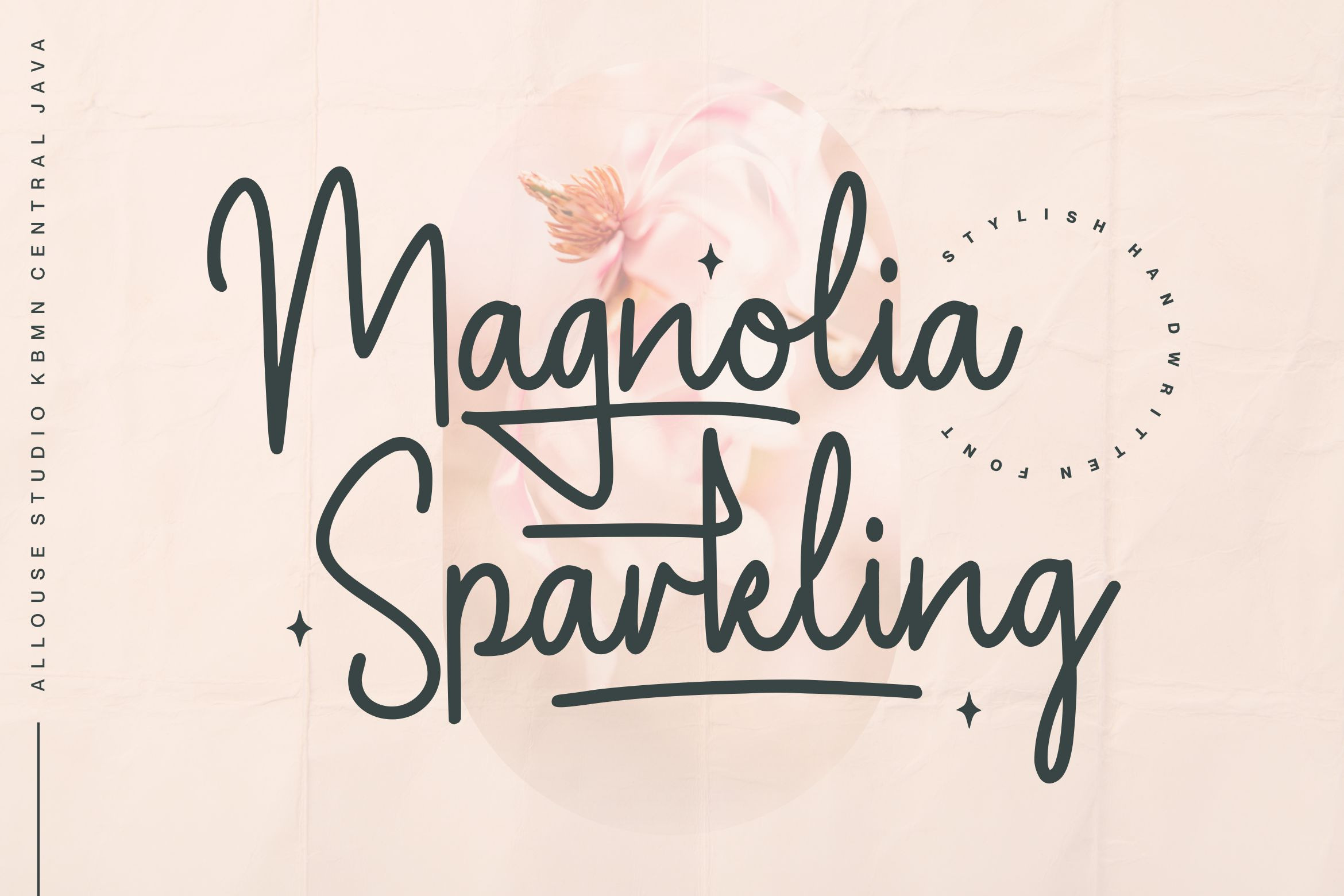
Magnolia Sparkling Font
Magnolia Sparkling is a Stylish Handwritten Font.
Magnolia Sparkling is perfect for product packaging, branding project, megazine, social media, wedding, or just used to express words above the background.